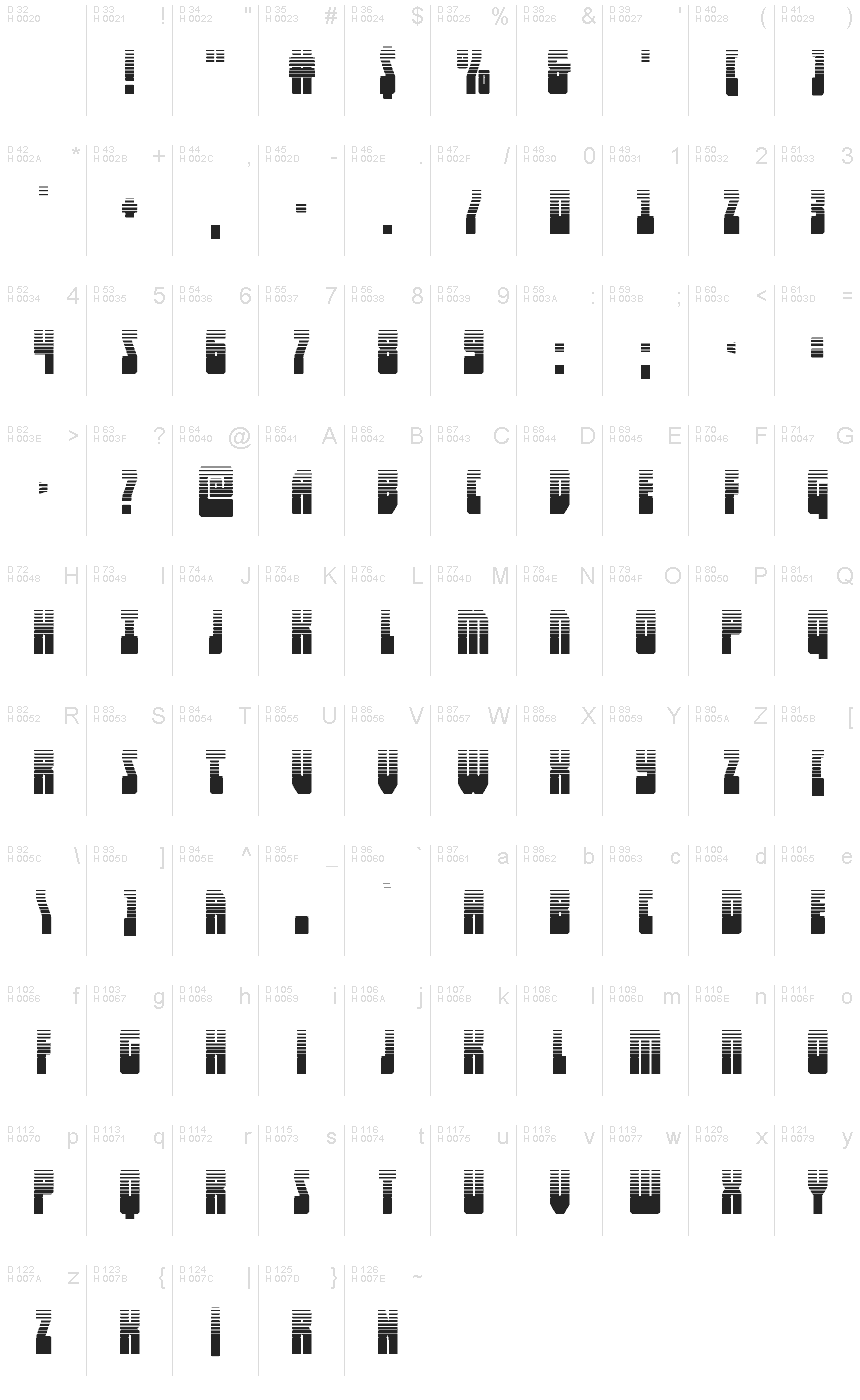
Elastic Lad Expanded Halftone
Elastic Lad Expanded Halftone font is a high-tech aesthetic display project from Iconian Fonts. With its groovy presence and bold width, this typeface brings in a futuristic feel that is both innovative and abstract. The condensed font has a structured look with clear geometric shapes making up its letters. These features altogether form the unique look of Elastic Lad Expanded Halftone.
Using Elastic Lad as your main font, create eye-catching movie/TV series titles, video game titles, CD covers, book covers and other cover designs such as those for magazines or comic books. Adult coloring books and websites/blogs looking to redefine their typography are others who can benefit from implementing this free font.